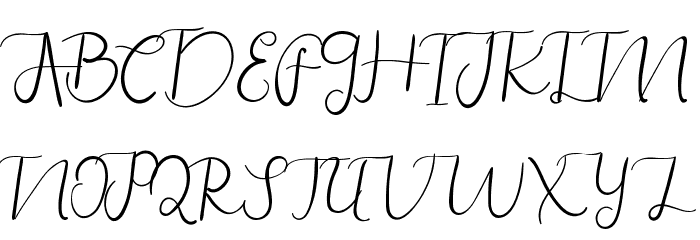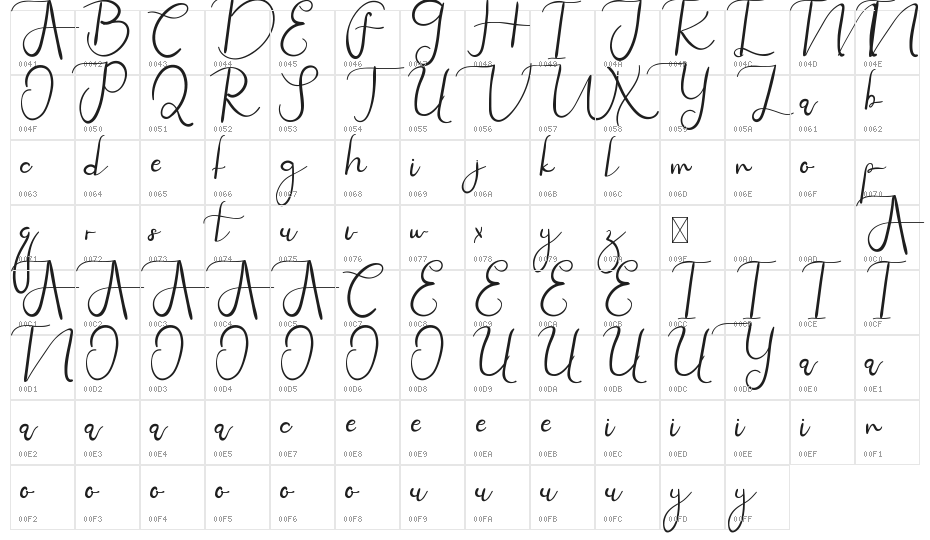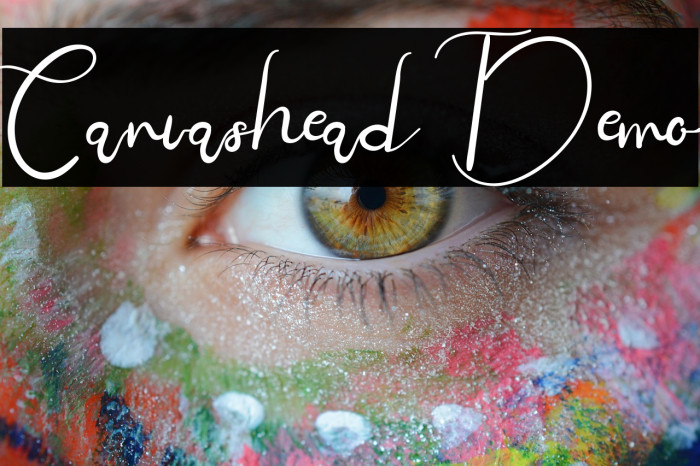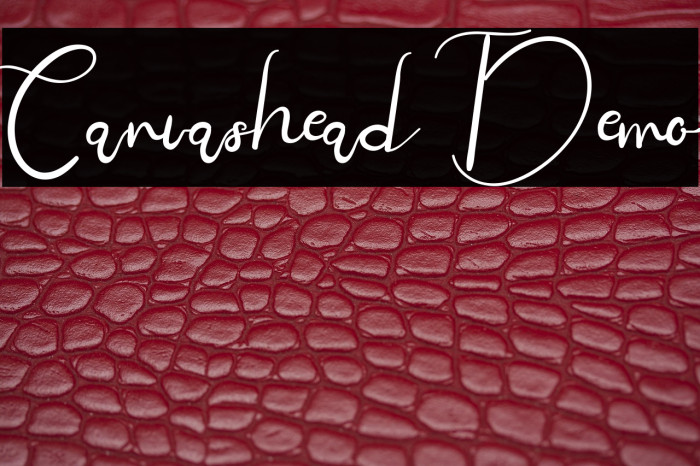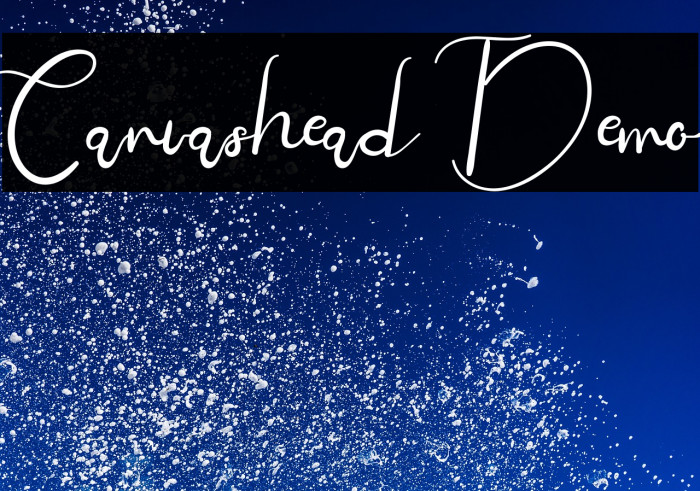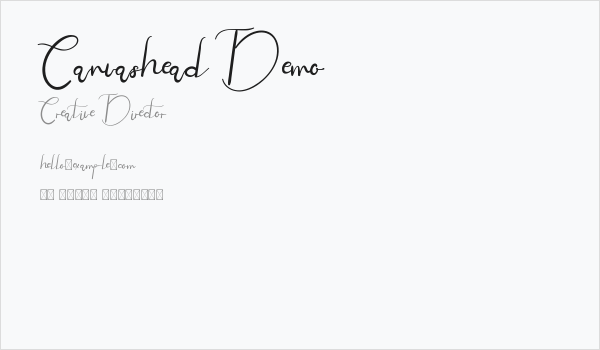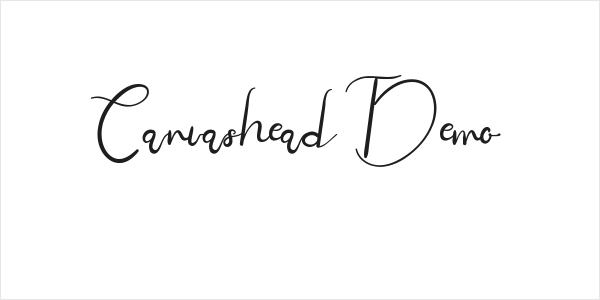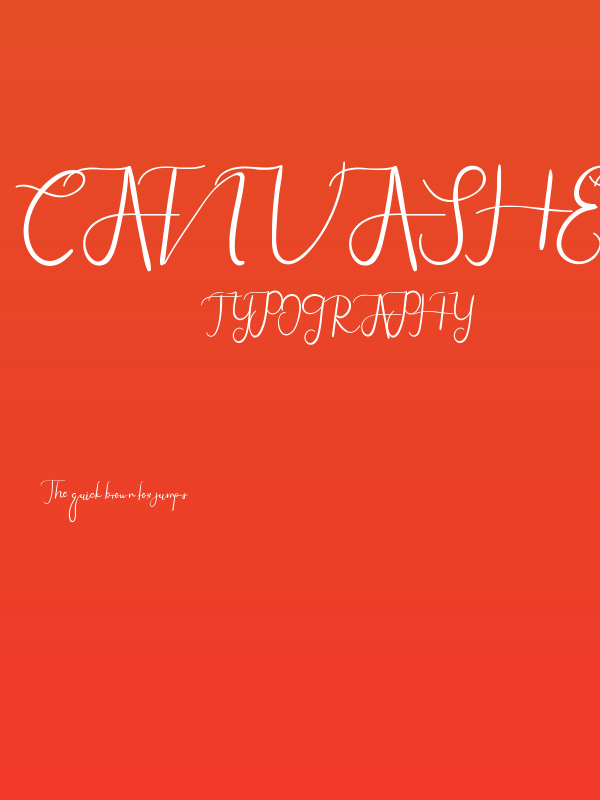
Canvashead Demo Font
Canvashead Demo Description
This font exhibits a unique blend of elegance and creativity, characterized by its flowing, cursive style. The uppercase letters are tall and slender, with graceful loops and curves that give them a sophisticated appearance. The lowercase letters maintain a consistent flow, with some characters featuring distinctive flourishes that add a touch of whimsy. The overall design is highly decorative, making it ideal for artistic and expressive projects. The font's playful yet refined nature makes it suitable for a variety of uses, from invitations and greeting cards to branding and logos. Its intricate details and stylish flair make it stand out, while still maintaining readability.
| Proposed Projects | Ideal for wedding invitations, greeting cards, branding, and artistic projects. |